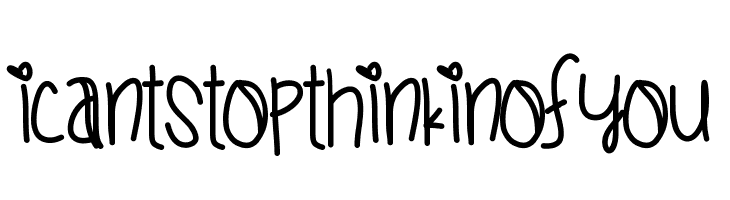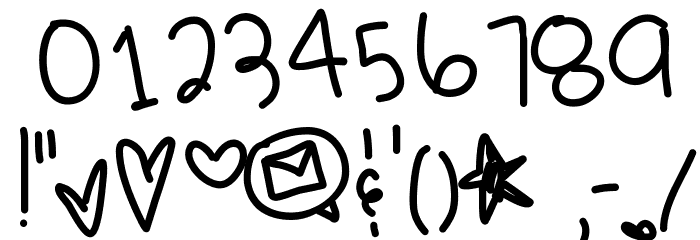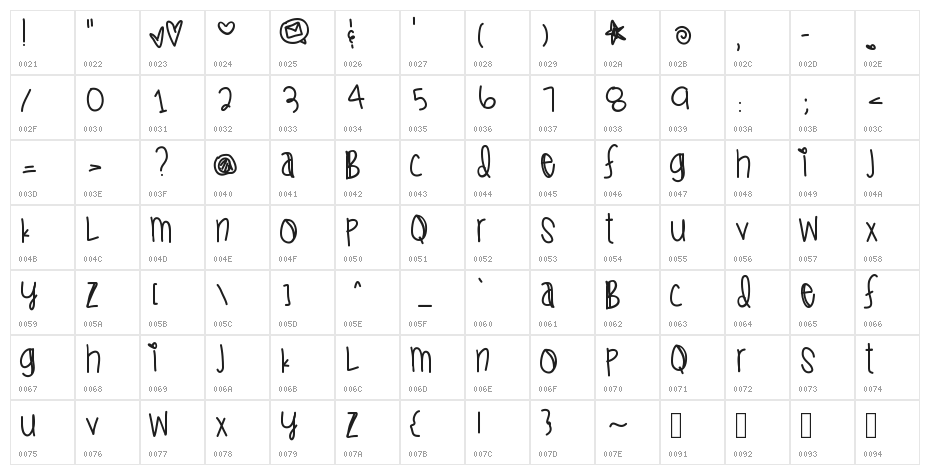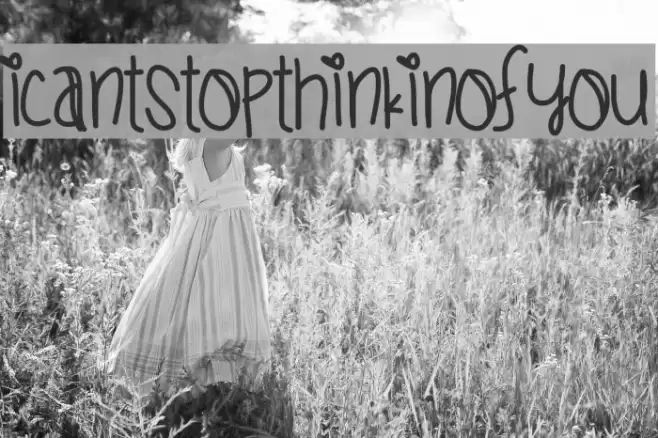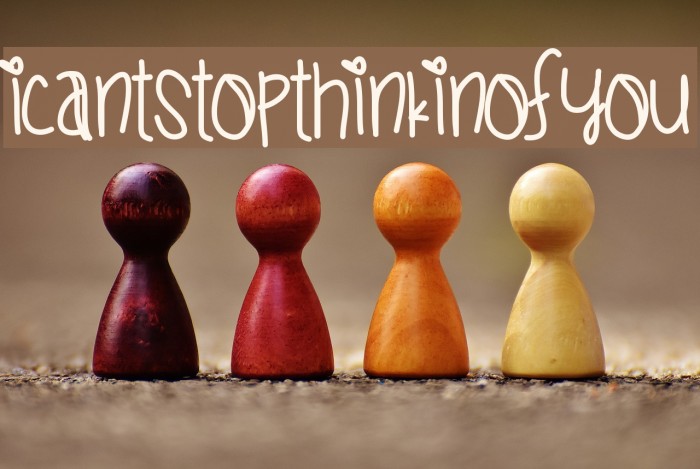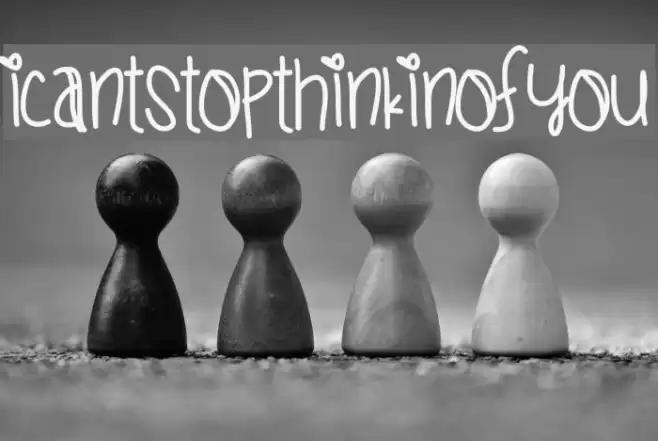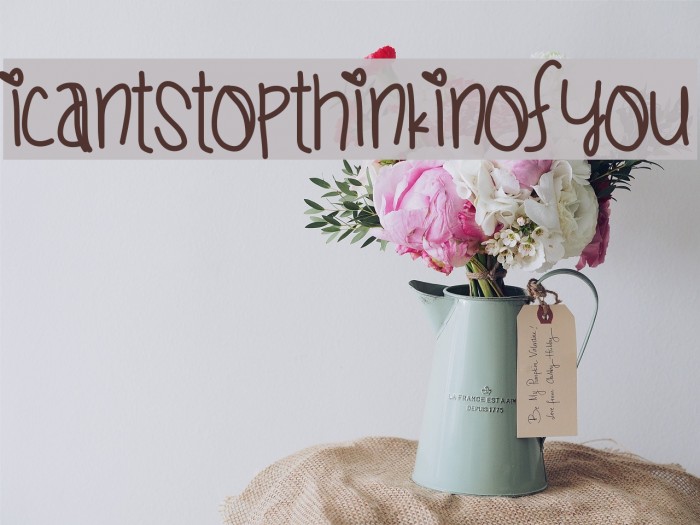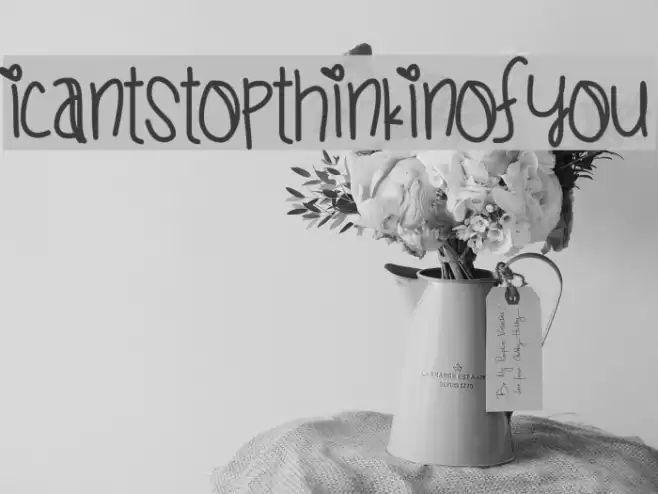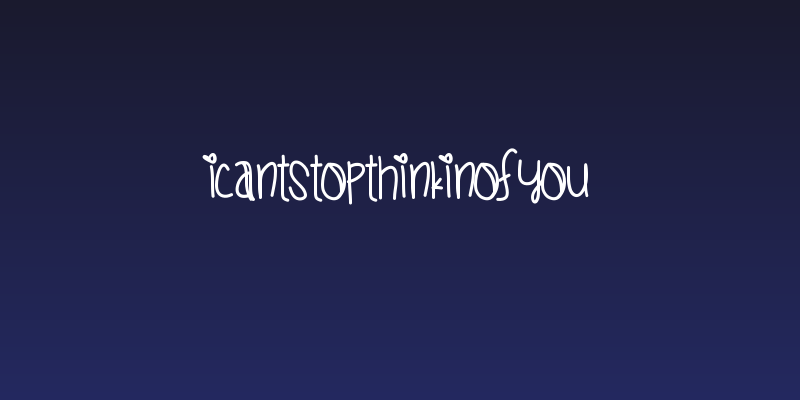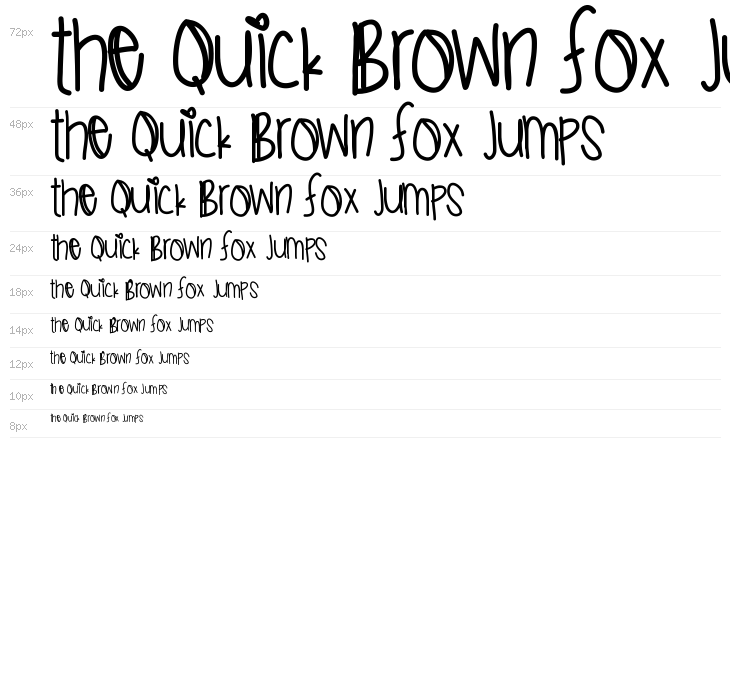
ICantStopThinkinOfYou Font
ICantStopThinkinOfYou Description
This playful and whimsical font features a handwritten style with a casual and friendly appearance. The letters are characterized by their uneven strokes and slightly irregular shapes, giving it a personal and informal feel. The inclusion of small decorative elements, such as hearts and stars, adds a touch of charm and creativity. The font maintains a consistent baseline, while the varying heights and widths of the characters contribute to its dynamic and lively look. The numerals and special characters are crafted with the same playful spirit, making it suitable for projects that require a fun and approachable aesthetic.
| Use Case | Logos, Headlines, Social media graphics |
| Proposed Projects | Ideal for greeting cards, children's books, playful branding, and social media graphics. |